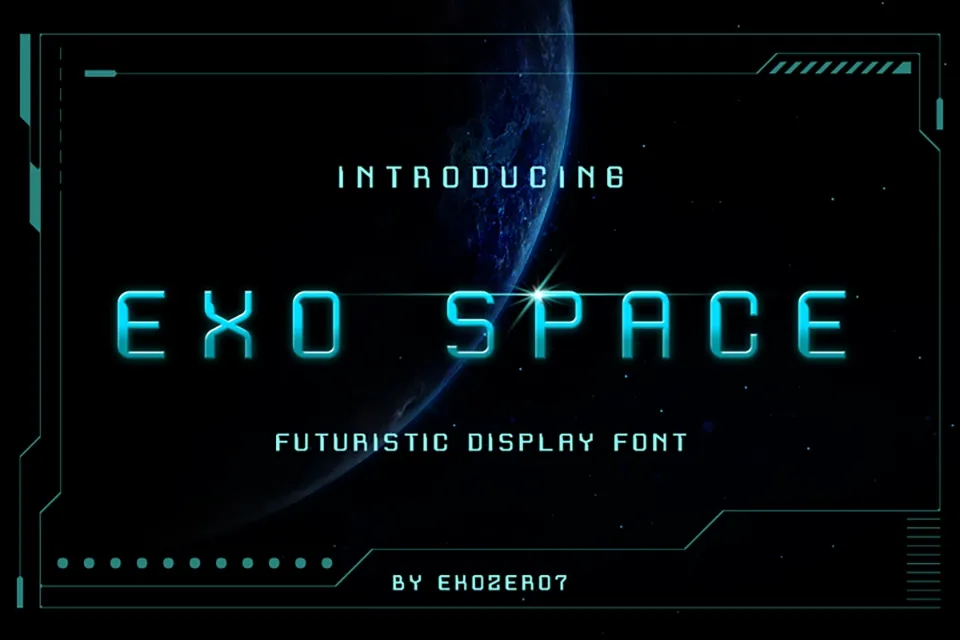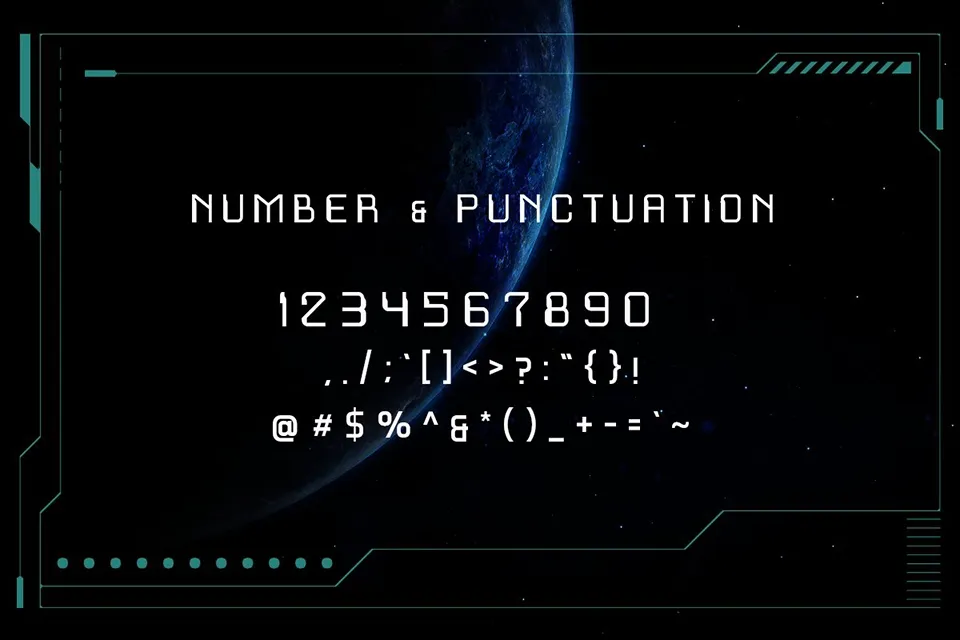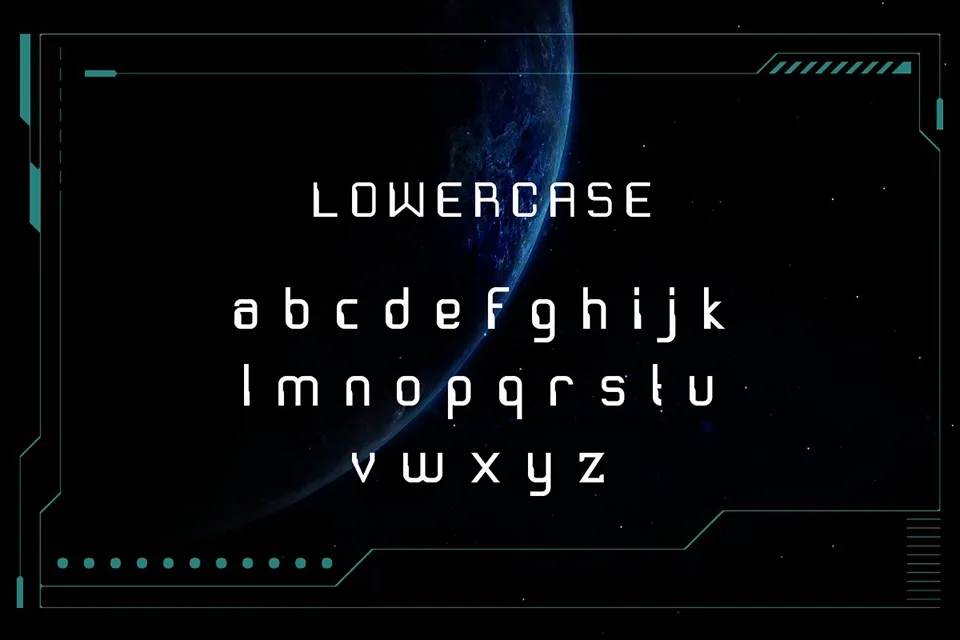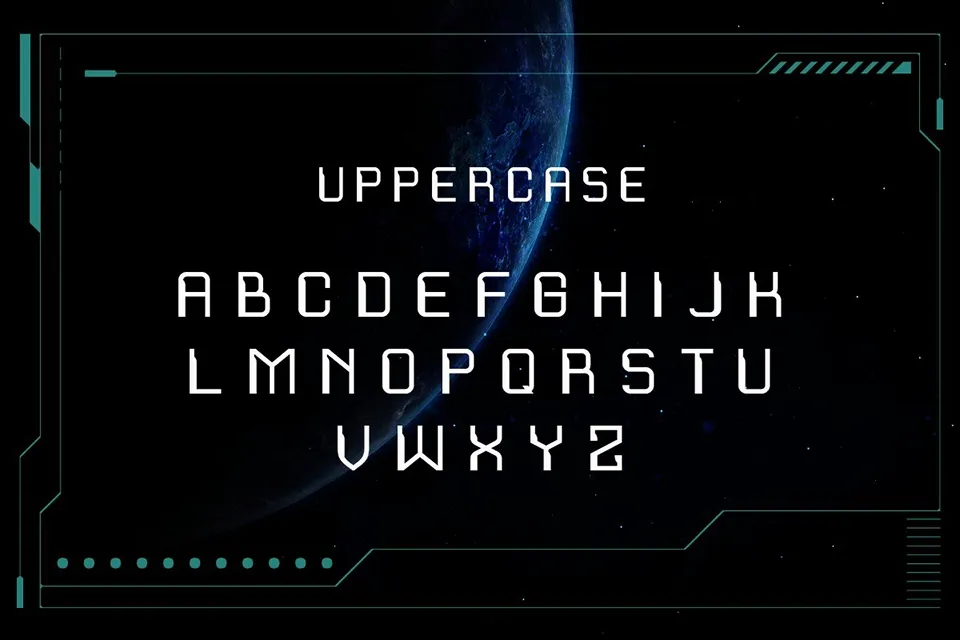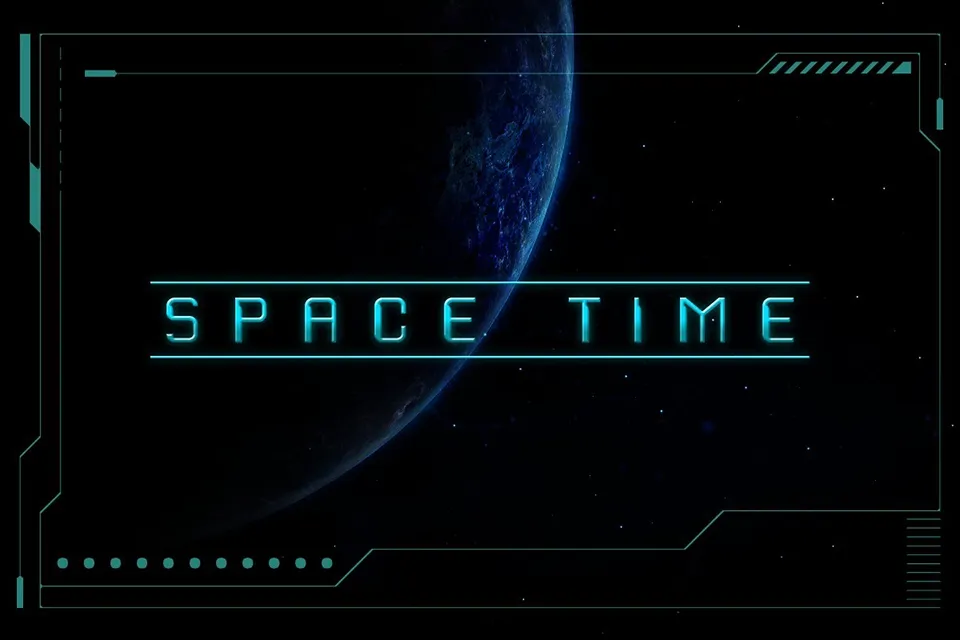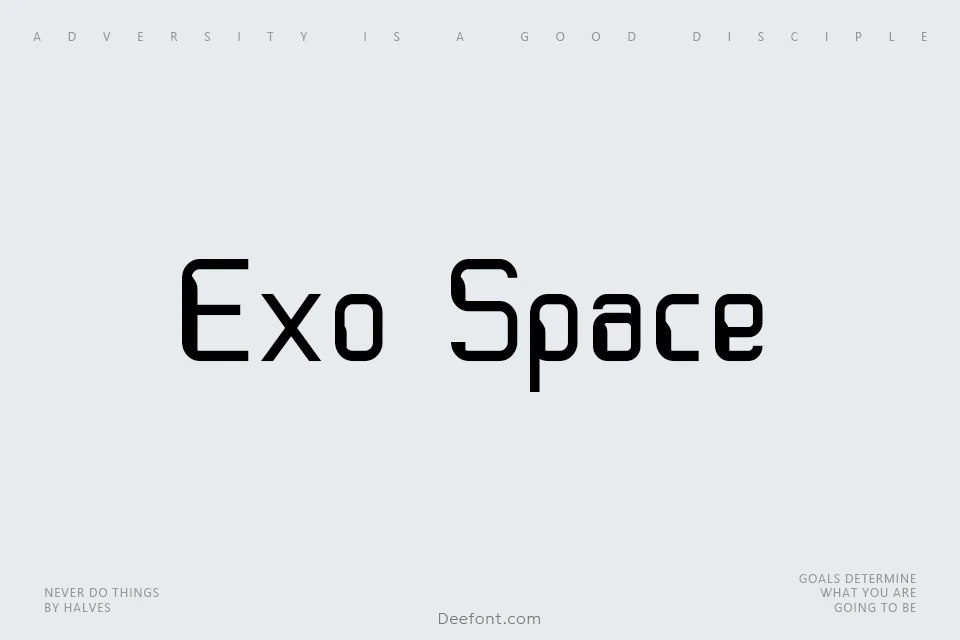
Exo Space Font
Exo Space Font is a futuristic display typeface designed to evoke the aesthetics of interstellar travel and advanced technology. With its sleek, modern lines and lean shaping, this font is ideal for space-themed gaming designs, sci-fi posters, logos, product packaging, and any project seeking an avant-garde, high-tech look. Its versatility extends across various creative industries, including entertainment, fashion, and advertising, making it a standout choice for bold, innovative typography.